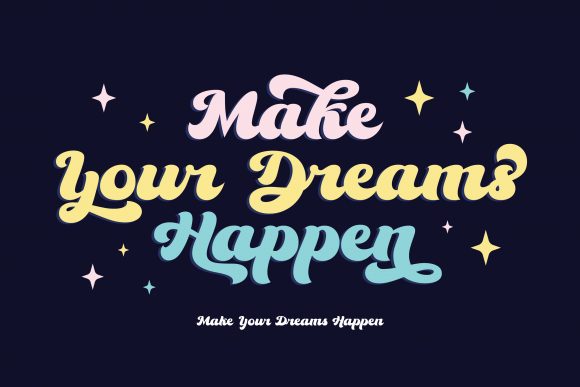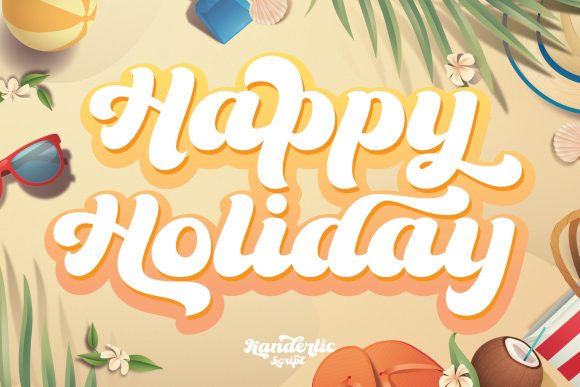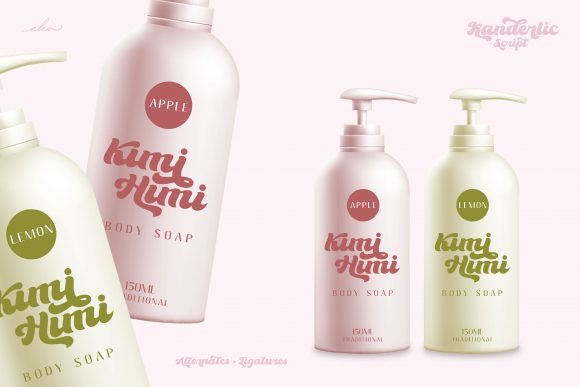
Introduction to Kanderlic Font
Kanderlic is a gorgeous, flowing and retro styled display font, crafted to give your headlines and logotype projects a stylish touch.
This font reads as strong, confident, and dynamic and can add tons of nostalgic character to your designs .